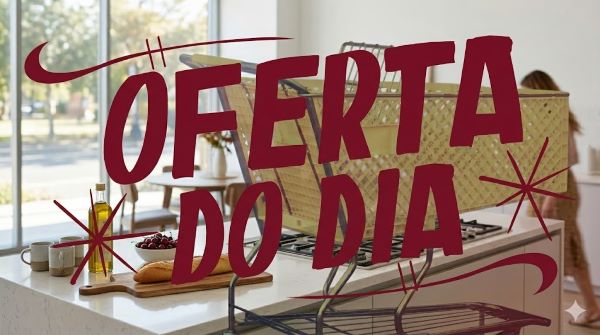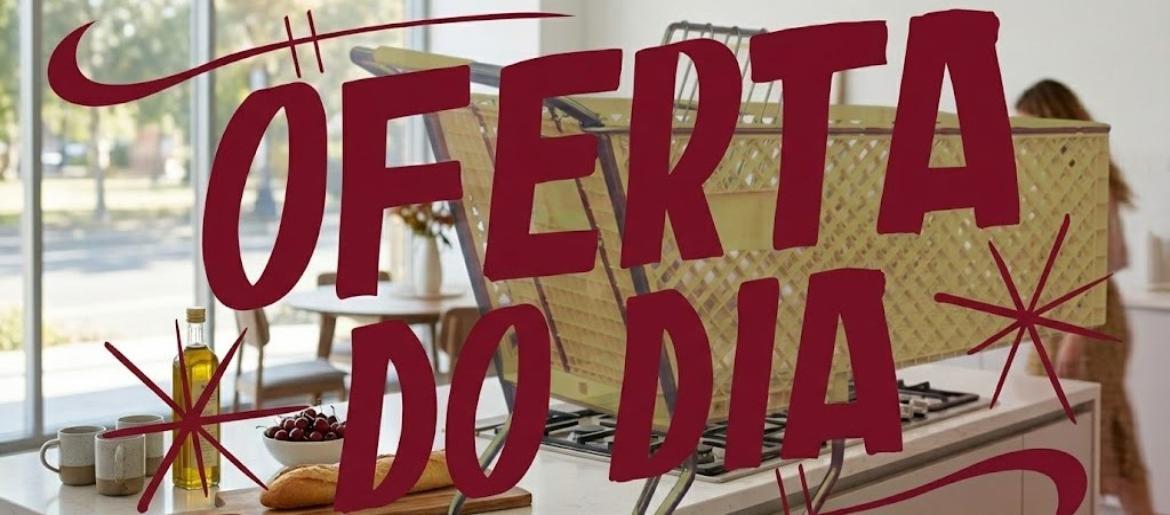
Oferta Do Dia Font
Oferta Do Dia is a vibrant and energetic display typeface designed to capture the attention of customers instantly. With its bold, thick strokes and friendly curves, this font is perfect for retail sales, promotional posters, and eye-catching social media marketing campaigns. It embodies a cheerful, commercial spirit that works exceptionally well for call-to-action buttons and price tags. The font’s high visibility ensures that your message remains readable from a distance, making it an essential tool for any designer looking to drive conversions and create a sense of urgency in their visual communication projects.